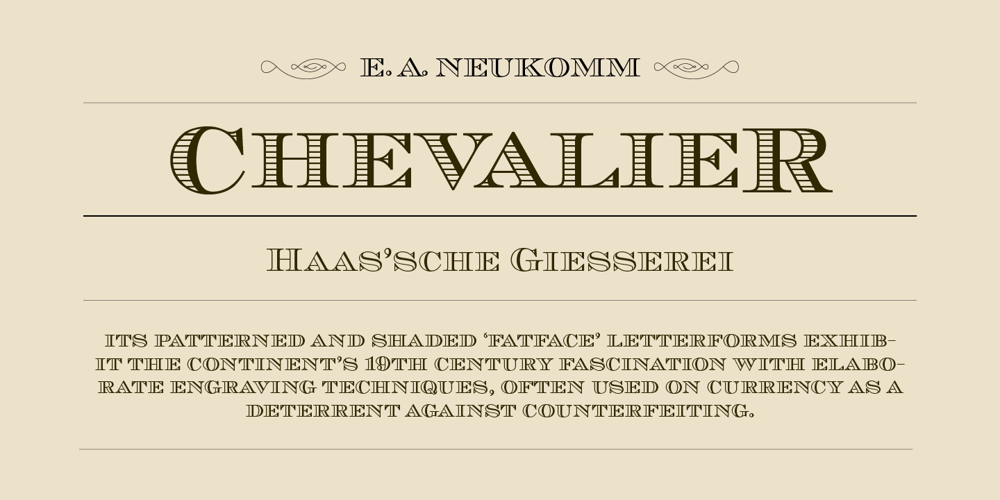
Chevalier Font Family was designed by URW Design Staff and published by URW Type Foundry. Chevalier contains 5 styles and family package options. Chevalier is an engraved all-capital typeface with delicate shading. The Chevalier font is suitable for business letterheads and corporate stationery, headlines and packaging, where a clean, safe, established image is desired. Chevalier is a trademark of Heidelberger Druckmaschinen AG, which may be registered in certain jurisdictions, exclusively licensed through Linotype Library GmbH, a wholly owned subsidiary of Heidelberger Druckmaschinen AG.